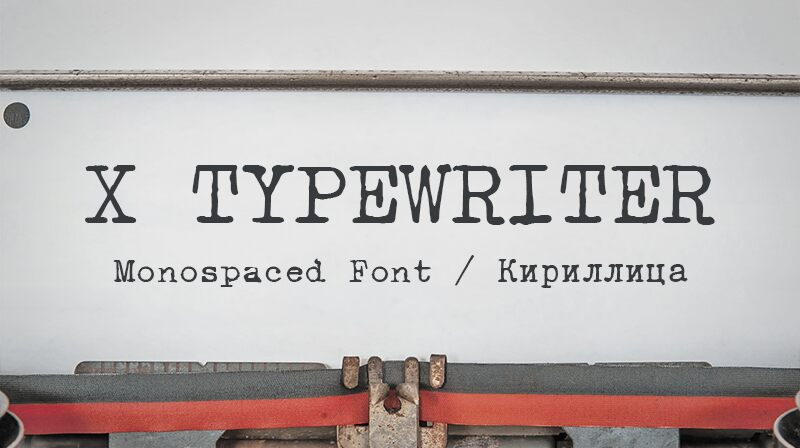
X Typewriter Bold by GGBotNet is a display font that masterfully blends the vintage charm of typewriter aesthetics with a distinct, eroded style. This bold design exudes a textured, weathered appearance that infuses any text with an edgy, nostalgic feel. Its striking features make it perfect for creating impactful headlines, eye-catching posters, and unique branding elements. Whether you’re aiming to evoke retro vibes or add an authentic touch to your designs, X Typewriter Bold’s visually arresting character makes it an ideal choice for both digital and print media.